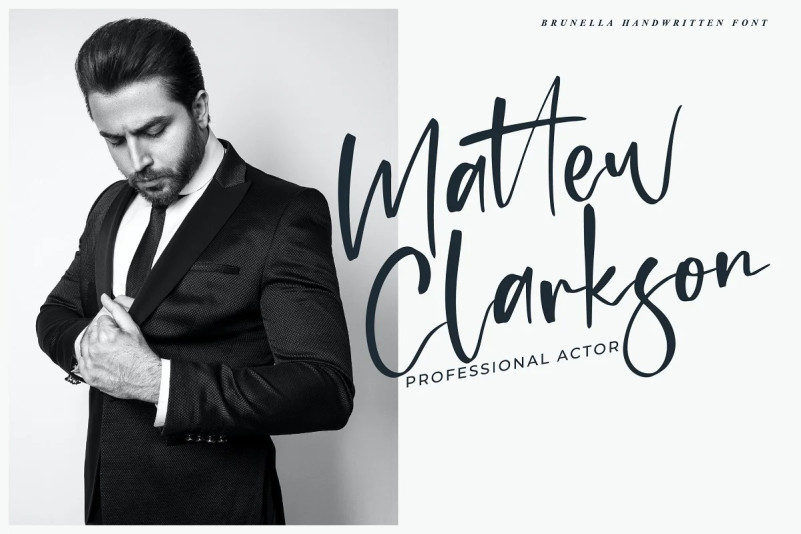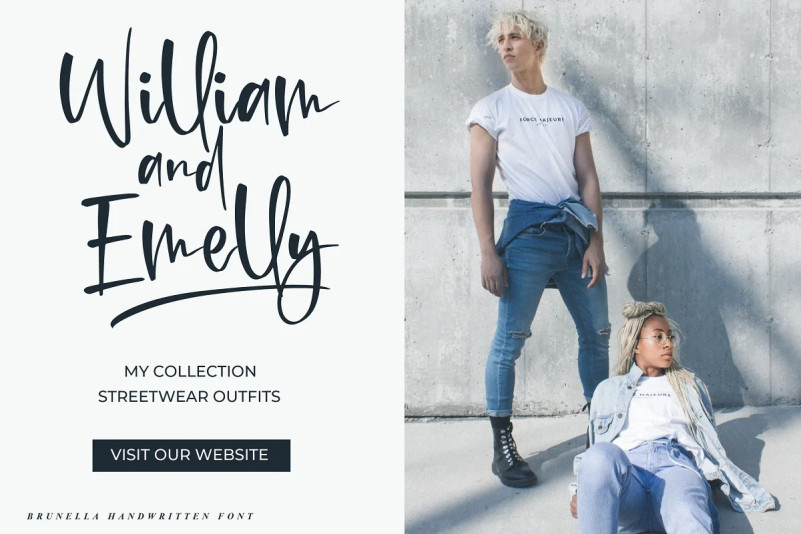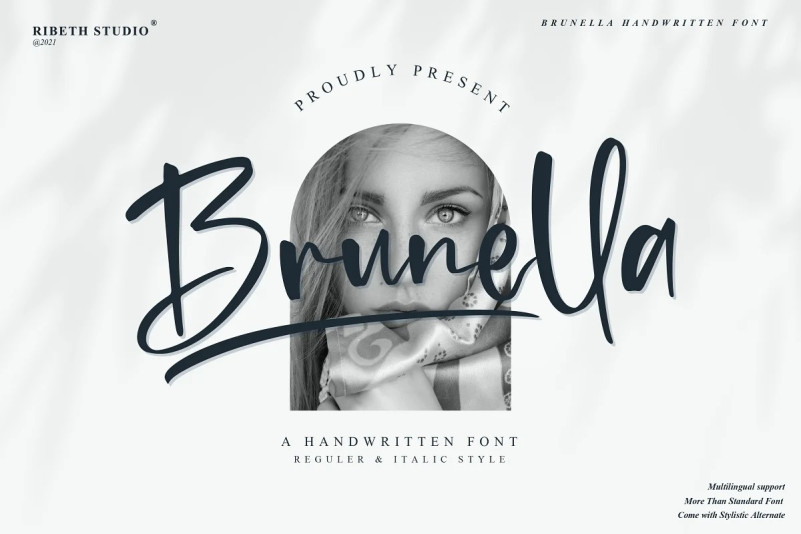
Brunella Font
Brunella Script Font is a stylish Handwritten font with 2 styles: Regular, Italic and includes a full set of uppercase and lowercase letters, multilingual symbols, numerals, punctuation, alternates, swash, and ligatures. The font is perfect for branding, wedding invites, and cards, Christmas card, branding, logos, product packaging, invitation, quotes, t-shirt, label posters, this is perfect for branding, logos, invitation, and more.